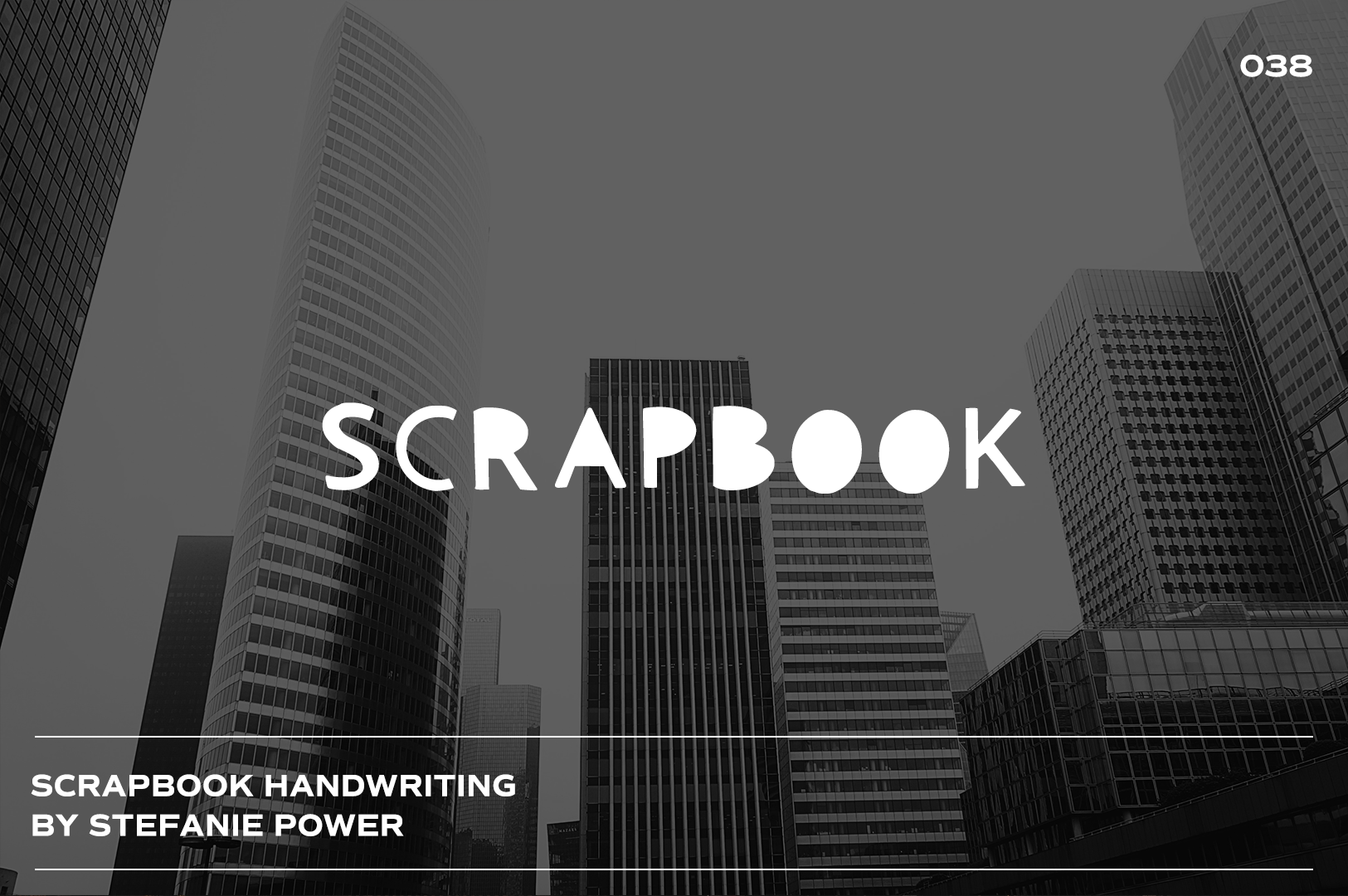
Scrapbook | Handwritten Font
Introducing 'Scrapbook' - an all caps, cut out looking handwritten font.
Scrapbook • A handwritten font containing uppercase characters and a range of punctuation and numbers.